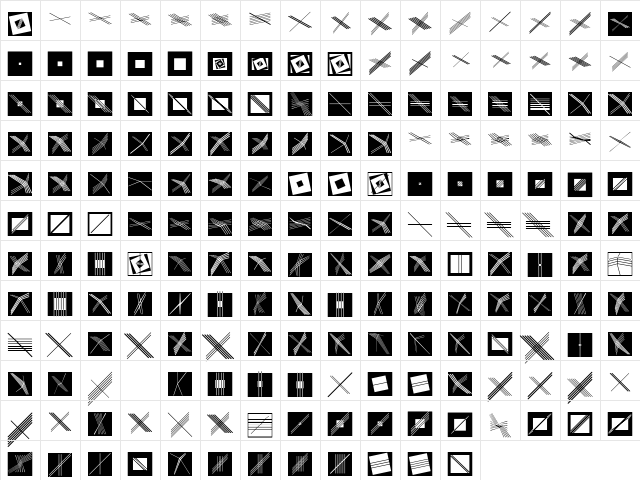
GalleriaGeometricaB Regular Free Font
GalleriaGeometricaB Regular
Design Context for GalleriaGeometricaB
GalleriaGeometricaB is a composed and adaptable typeface that performs quietly and consistently across a wide range of design contexts.